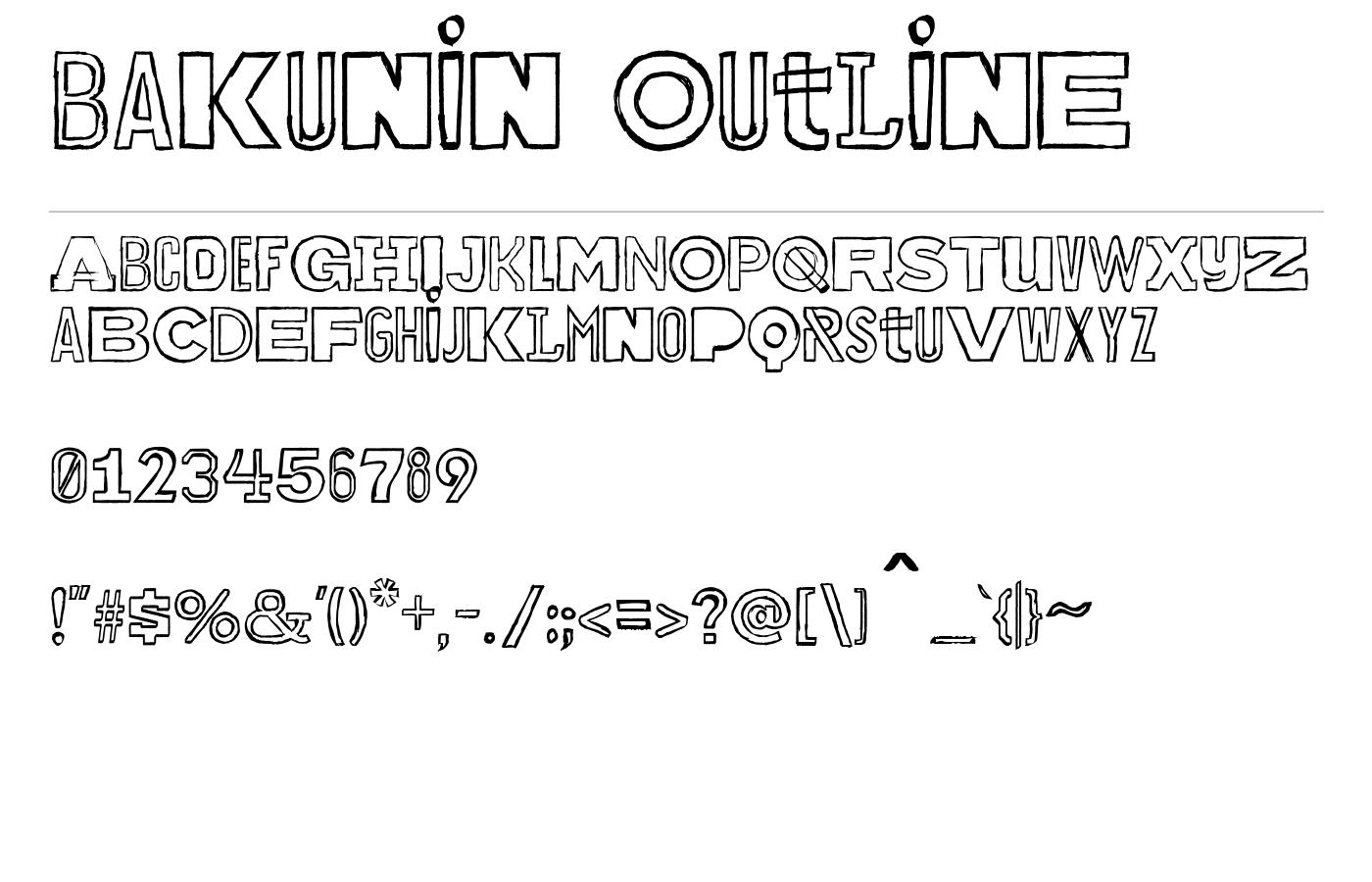
Bakunin Regular is a playful, hand-drawn sans serif font with an outlined style that gives it an informal and artistic feel. Its quirky letterforms and variable stroke widths make it ideal for creative projects, posters, and branding that aim to stand out with a youthful, handcrafted vibe. This font works well in headline and display contexts where personality and uniqueness are key.
Bakunin Regular Font
About Bakunin Regular Font
| Designer | Doğukan Karapınar |